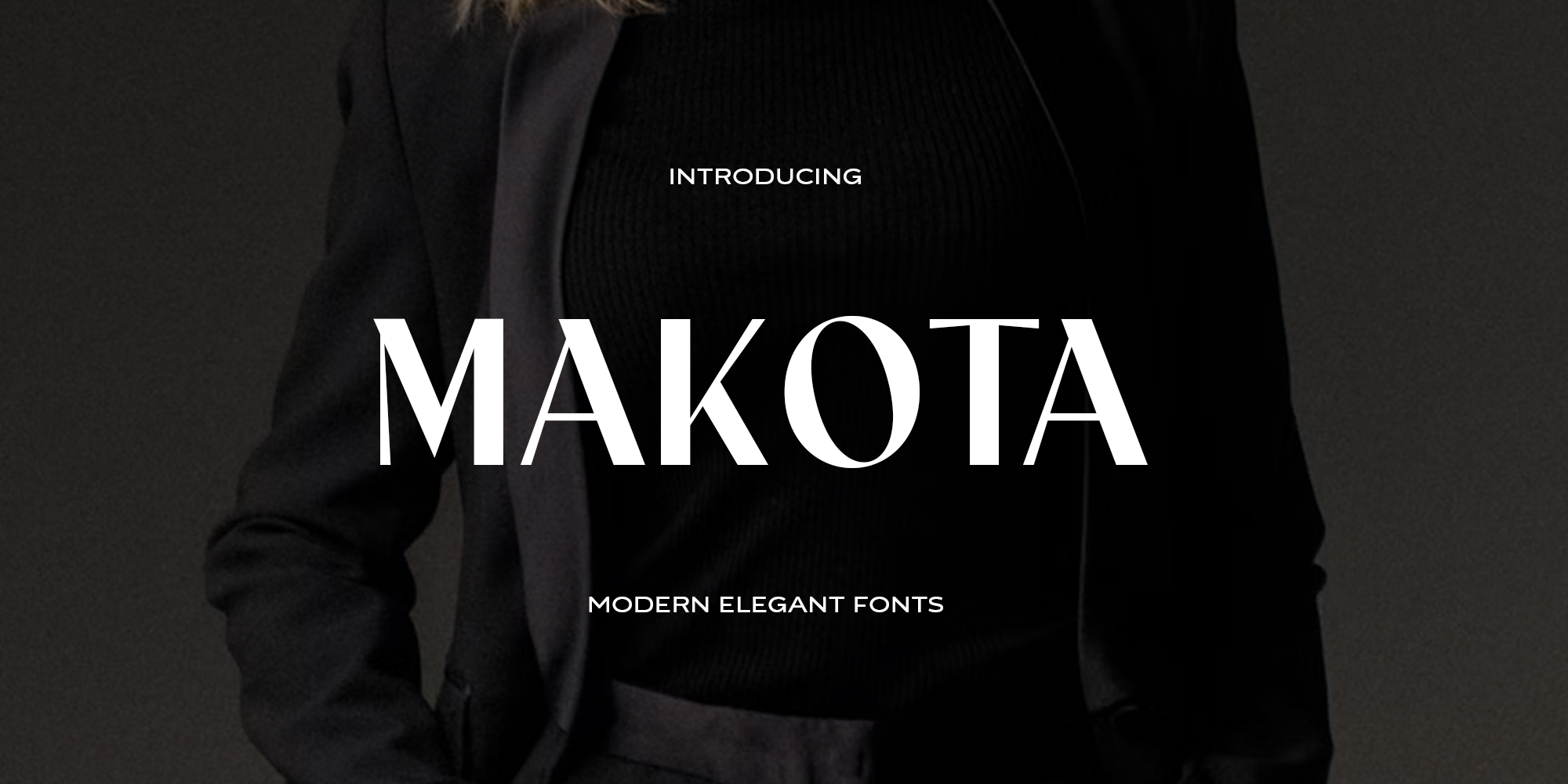
The Makota Font Free Download is a modern, elegant sans-serif typeface perfect for branding, editorial design, packaging, web interfaces, and advertising. Its clean lines and balanced proportions make it highly versatile and suitable for both digital and print projects.
What makes this font exciting is its minimalist yet sophisticated style. Makota blends simplicity with personality, offering clarity without sacrificing character. It’s ideal for designers seeking a contemporary look with a touch of elegance.
The Makota font family includes multiple weights ranging from Light to Bold, allowing for flexible typographic hierarchies and creative freedom in layout design.
Whether you're designing a sleek corporate identity or a stylish website, Makota Font Free Download provides the perfect blend of professionalism and modern aesthetics.